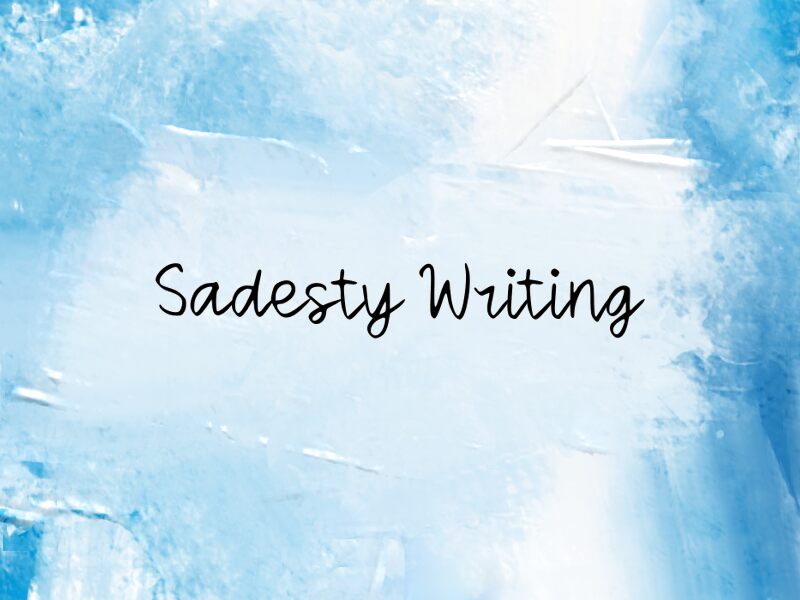
Sadesty Writing
Sadesty Writing font by wepfont.com is a free handwritten script typeface that captures the feel of a neat, personal note without looking messy or childish. Its smooth, slightly bouncy strokes and consistent rhythm keep it friendly and relaxed, while the open counters and clear letterforms stay easy to read even at smaller sizes. It feels like ink from a good pen on smooth paper—casual, but carefully written.
Using Sadesty Writing, you can bring a warm, human touch to greeting cards, quotes for social media, planners, packaging, logos, and blog graphics. This free font works beautifully for headings or short text lines; pair it with a simple sans serif for body copy, and let Sadesty Writing handle the accents, titles, and signatures.